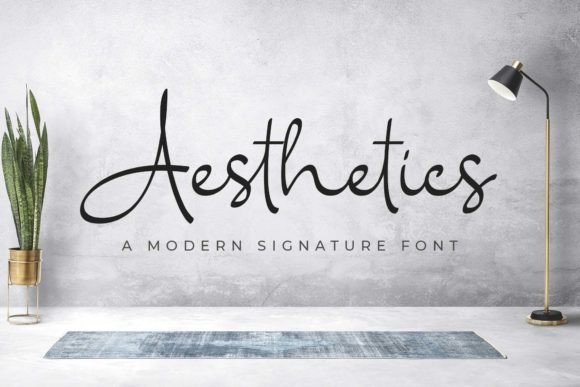
Step towards a world of exquisite beauty, where letters dance in harmony to create enchanting visual masterpieces. Presenting Aesthetics Font - a mesmerizing script & handwritten typeface that will set your creations apart. Dive into the realm of artistry and creativity, as this font beckons you to unleash your inner flair.
With its fluid strokes and intricate details, Aesthetics Font breathes life into your designs, adding a touch of elegance and personality that captivates and inspires. Whether you're crafting heartfelt invitations, building a brand identity that radiates sophistication, or embarking on artistic journeys, this font is your perfect companion.
Picture this: Your words, adorned with Aesthetics Font's graceful curves and delicate flourishes, take flight as if painted by a master calligrapher. Experience the joy of creating designs that resonate with grace and charm, leaving an unforgettable impression on whoever beholds them.
Beauty knows no bounds, and neither does Aesthetics Font. Its versatility extends far beyond invitations and branding. Whether you're designing packaging that enchants the senses, creating social media posts that demand attention, or crafting websites that exude creativity, this font adapts seamlessly, enhancing every project with its timeless appeal.
In a world where sameness often prevails, Aesthetics Font emerges as a breath of fresh air, a font that dares to be different, to stand out, and to make a statement. Embrace its unique style, let your imagination run wild, and witness the transformation as your designs blossom into captivating works of art.